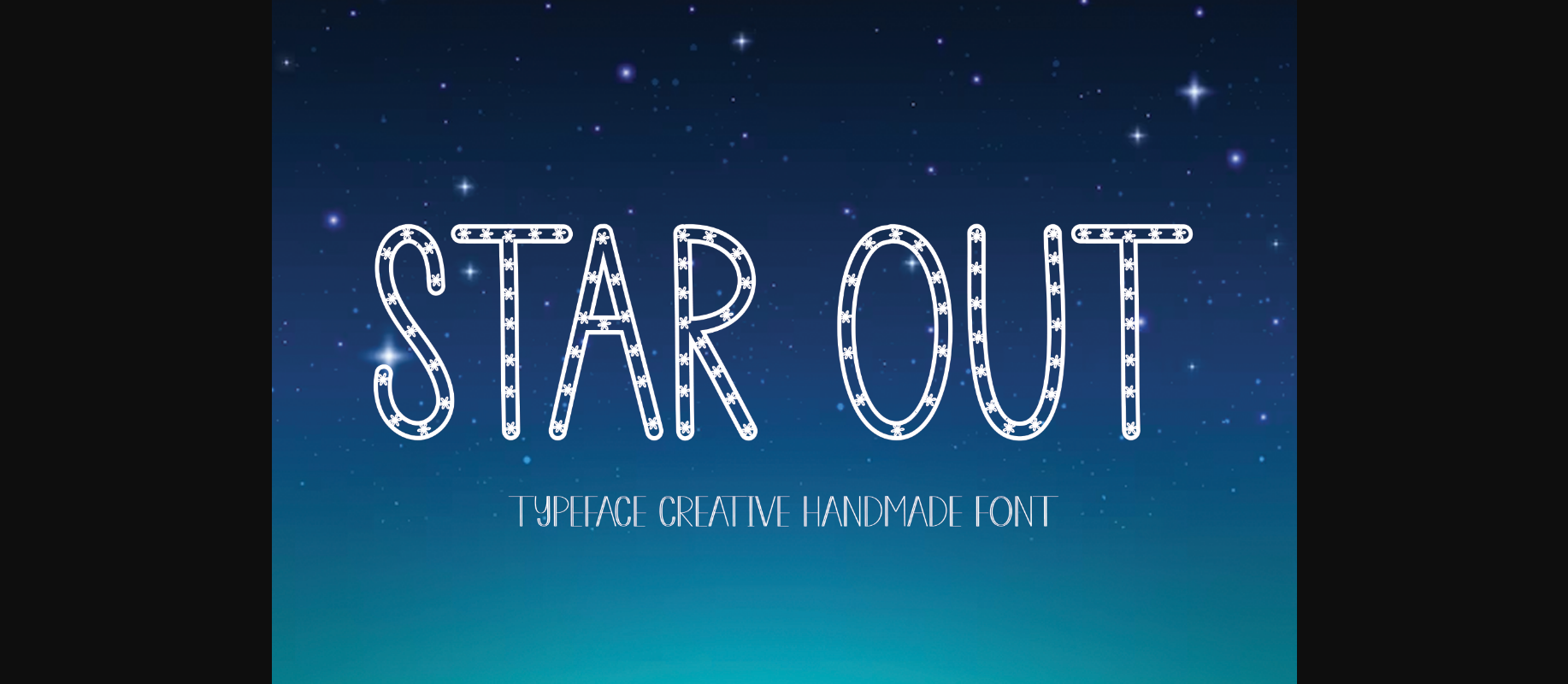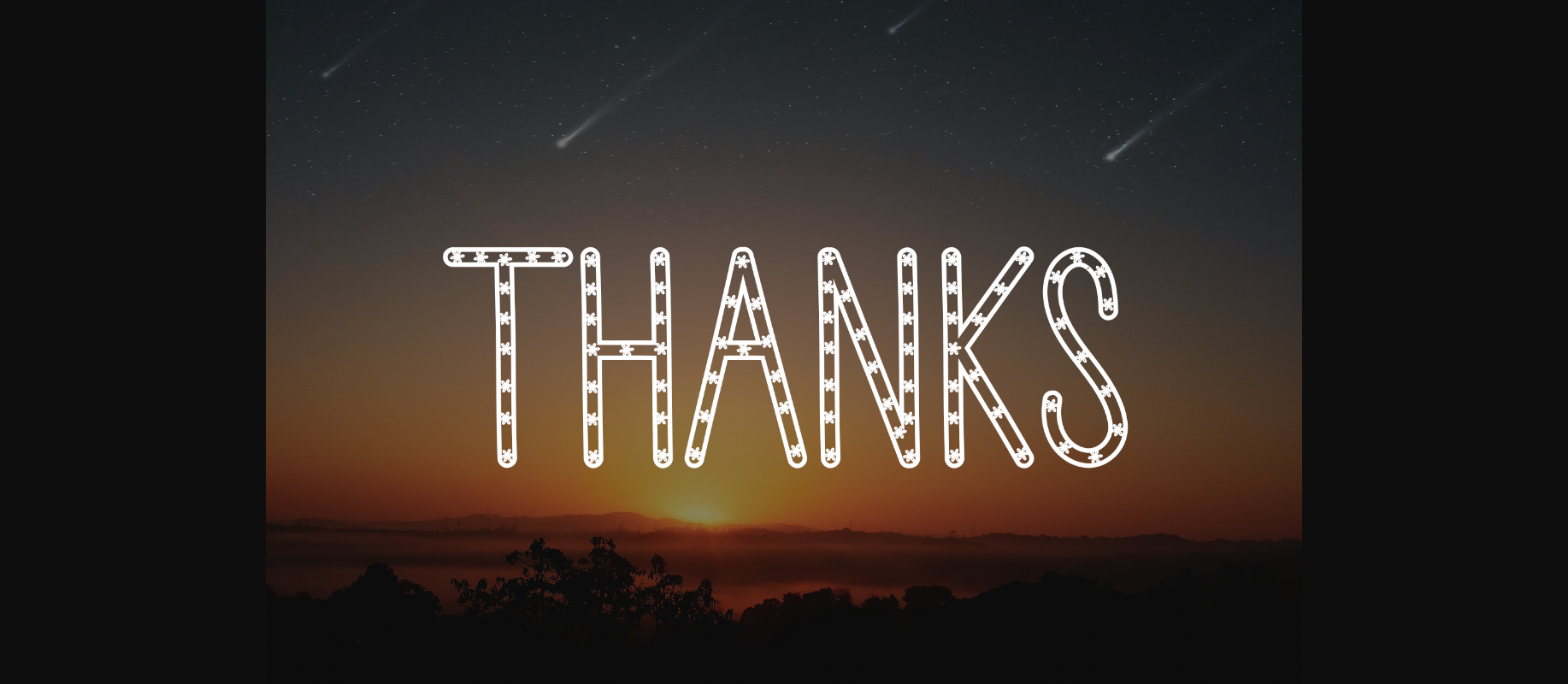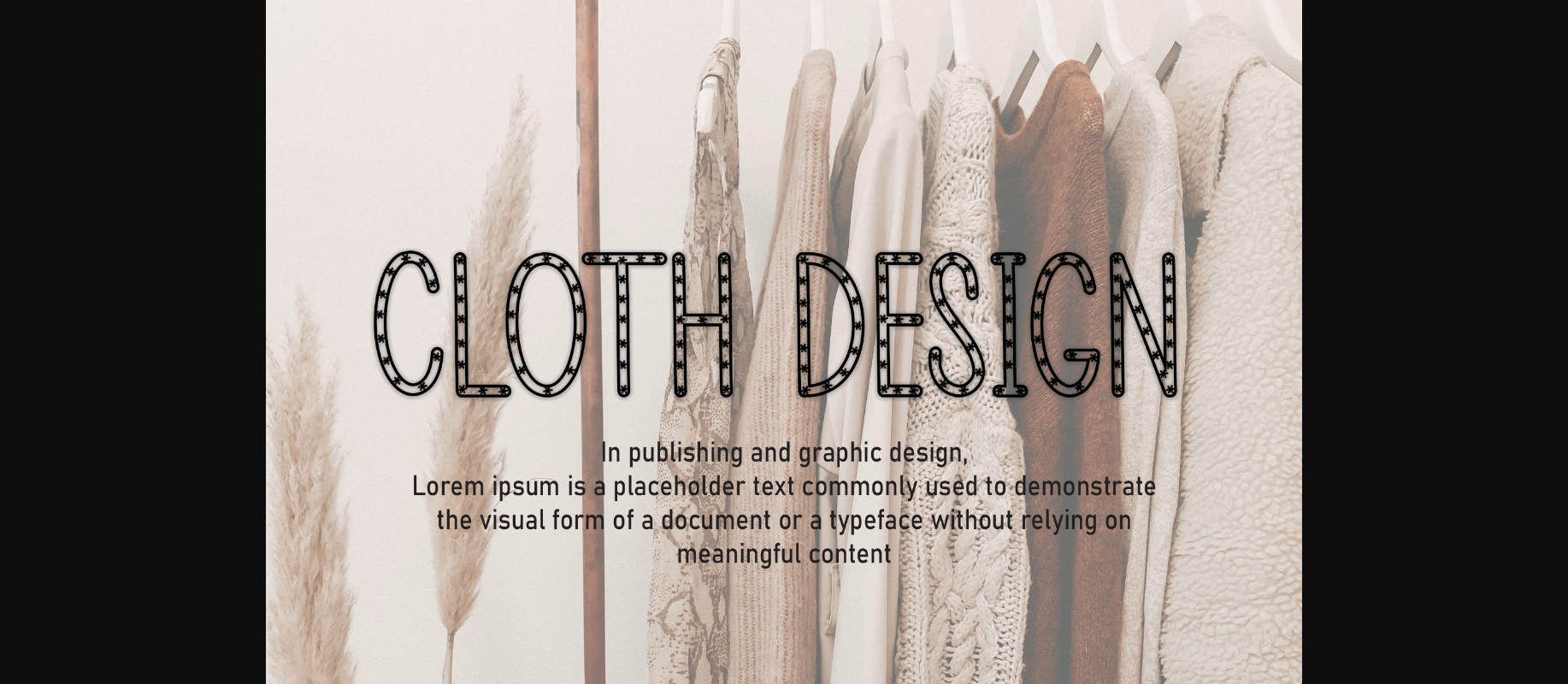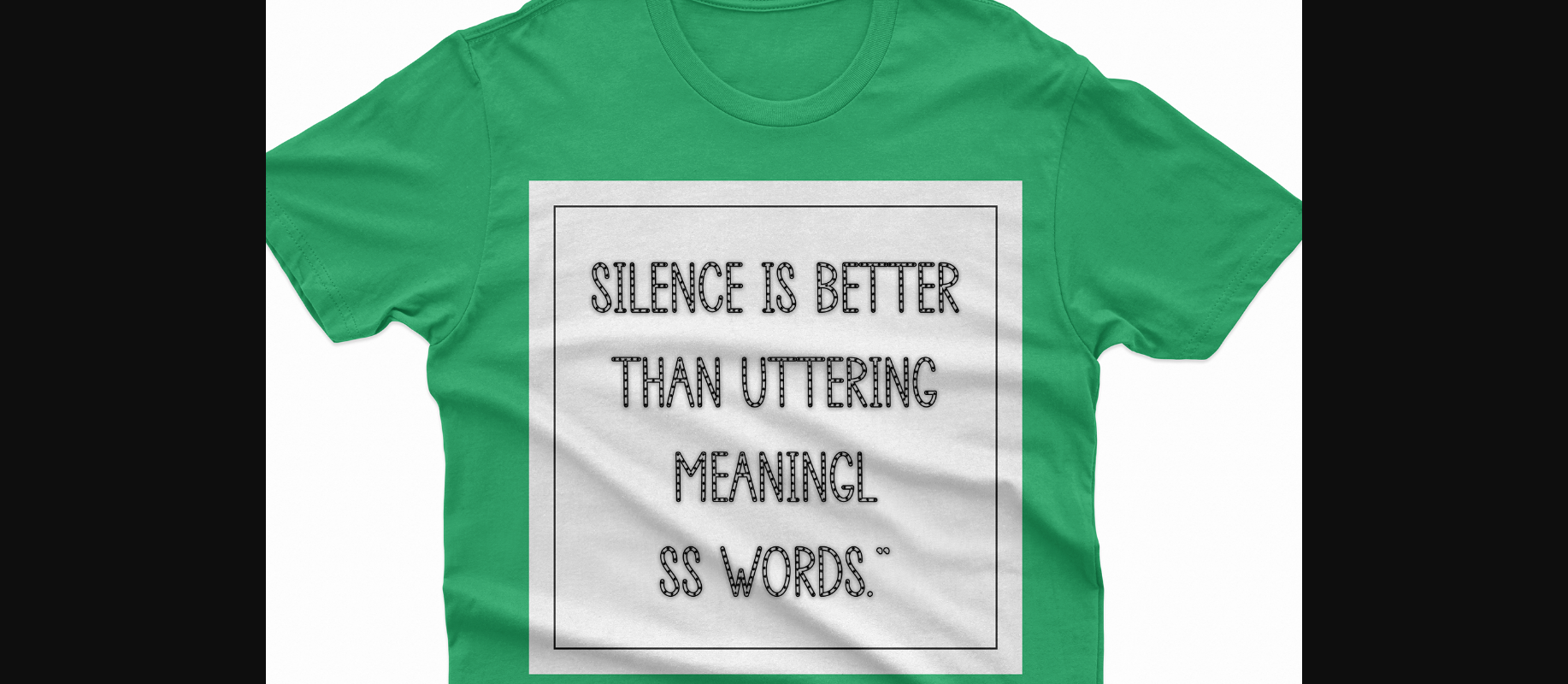
Star out Font
About Star out Font
Star Out is a sweet and friendly decorative font. Creative and versatile, this font is ideal for writing wedding invitations, cards, or any other design that might need a fun touch!